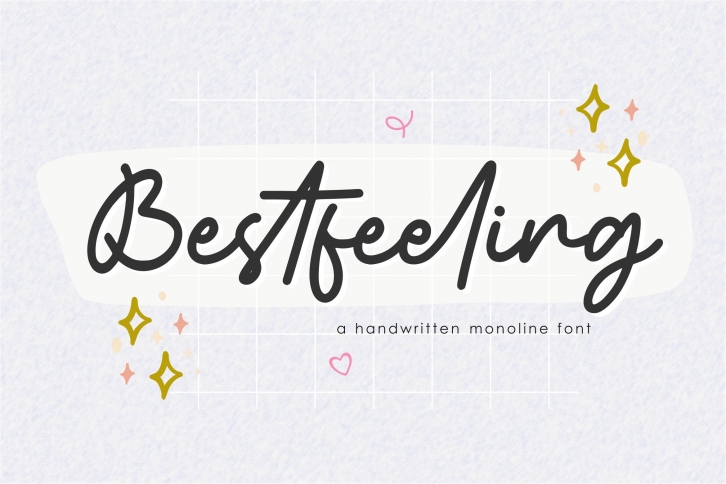
Bestfeeling is a gorgeous font that was realeased on October 20, 2022. The font can be used in many style contexts and design environments. Perfect for invitations, magazines, websites, logos, and more! It was designed by Qwrtype Foundry and the file size is 12.39 MB. Thanks for checking out this font!